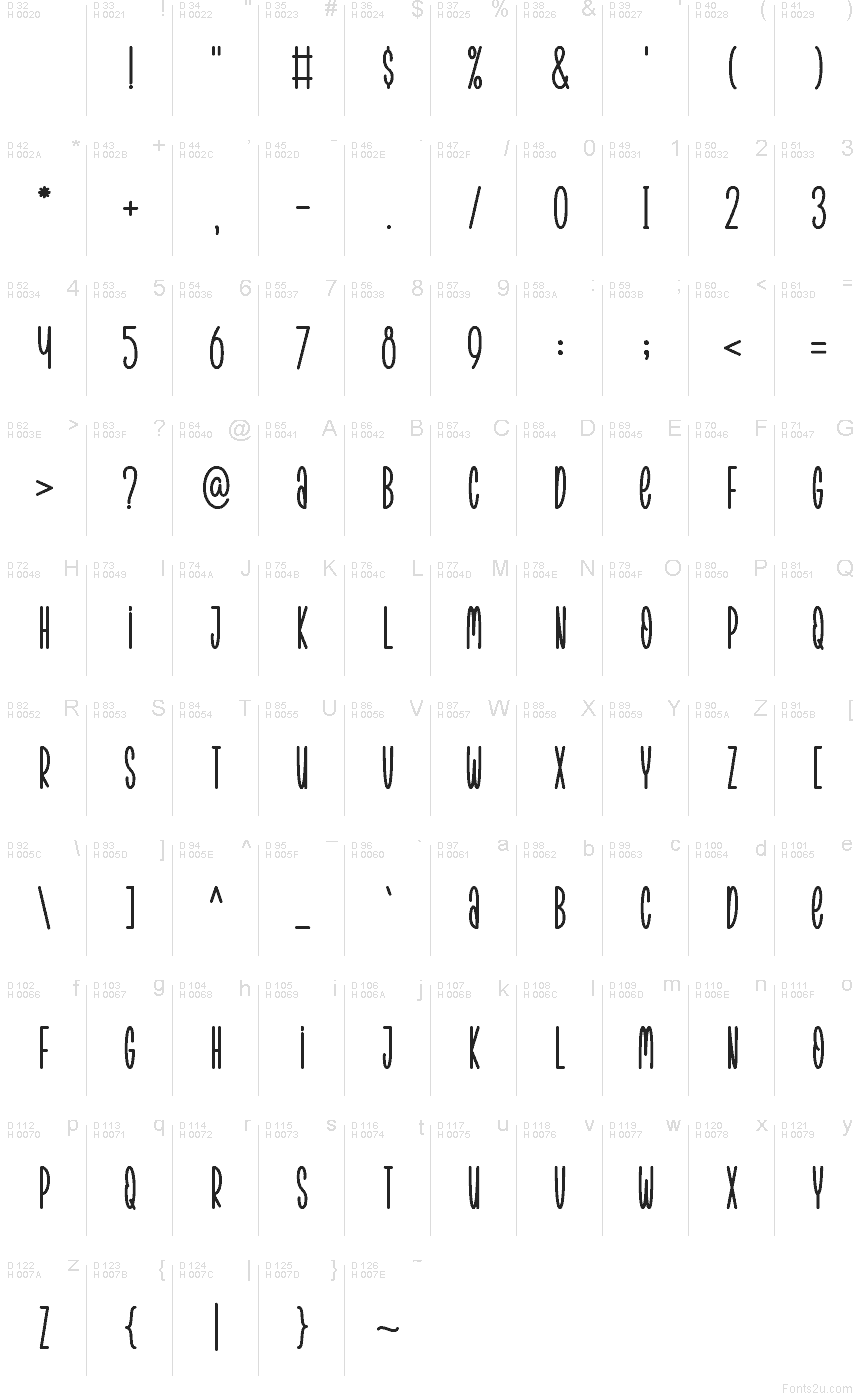
Sometimes Duo font by Wahyu Studio is a free handwritten typeface with a fun split personality: tall, narrow letters that stretch upward like rubbery lettering on a poster, paired with a softer, more casual script. The forms are slim and tightly packed, giving headlines a quirky, stacked feel that still reads clearly at a glance. There’s a playful wobble to the strokes that feels hand-drawn without turning messy, making designs feel warm, personal, and just a bit offbeat.
Using Sometimes Duo, you can easily mix the two styles for logo lockups, product packaging, quote prints, invitations, social media graphics, and sticker sheets. This free font shines when you let the bold condensed style handle titles and the script handle accents or taglines. For a simple pairing, try setting body text in a clean geometric sans and keep Sometimes Duo at larger sizes so its tall, inky character can really breathe.